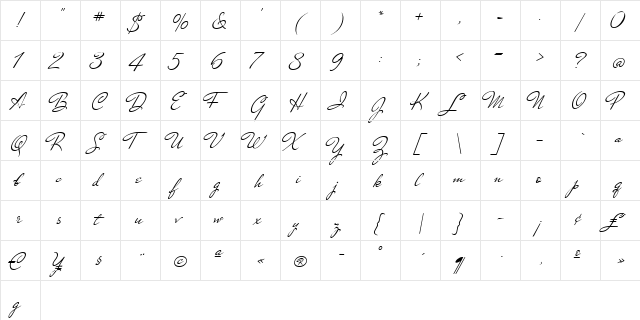
Nicoletta script Regular
| Designer | Cirilicna Slova Dodao Nikola Kovanovic. |
Design Context for Nicoletta script Typeface
Nicoletta script flows with the natural rhythm of handwritten lettering, making it ideal for designs that call for warmth and personal expression.
Font Pairing: Combine Nicoletta script with a simple geometric sans for maximum contrast — the tension between flowing curves and clean structure is a classic typographic pairing.
Pro Tip: Pair Nicoletta script with a clean sans-serif for supporting text. The contrast between fluid script and geometric structure creates an elegant typographic hierarchy.